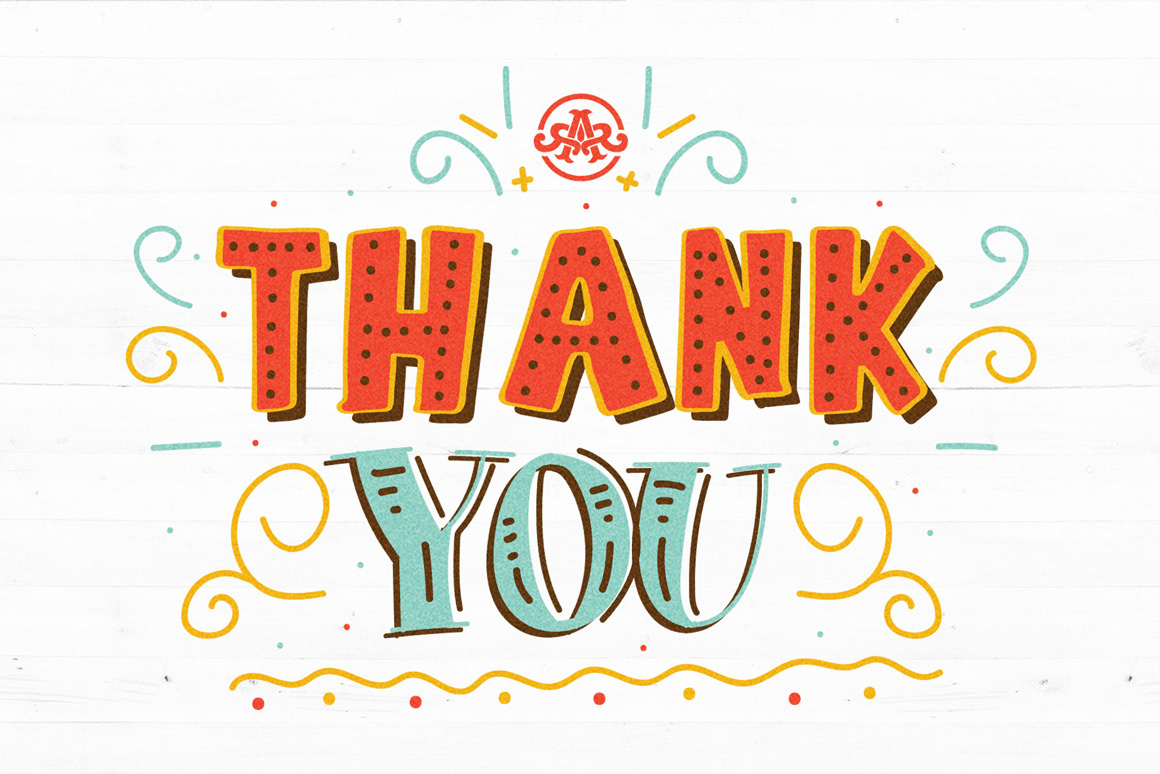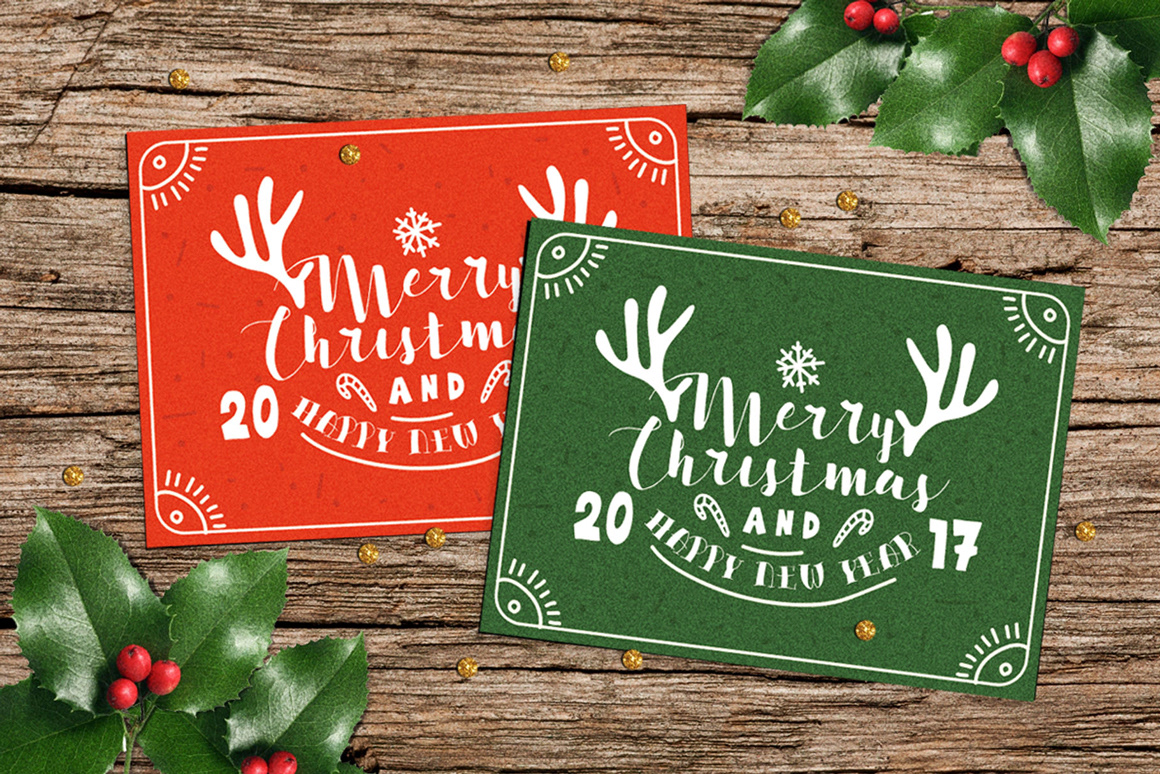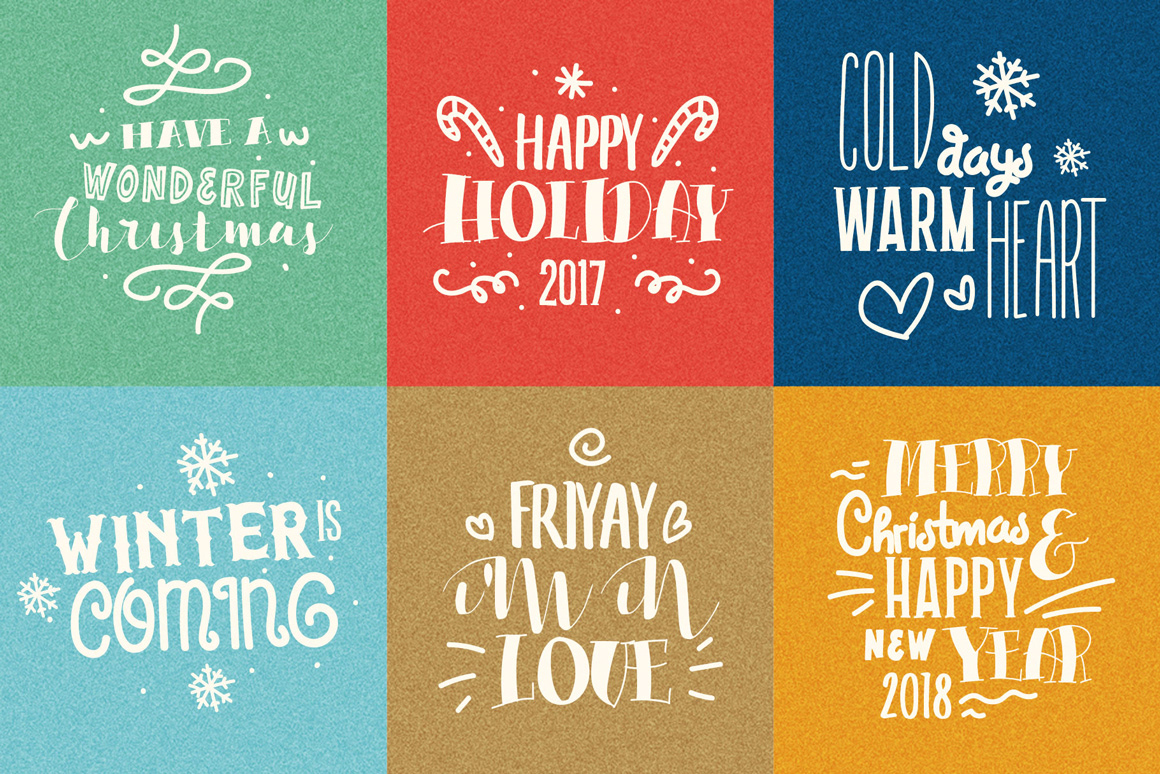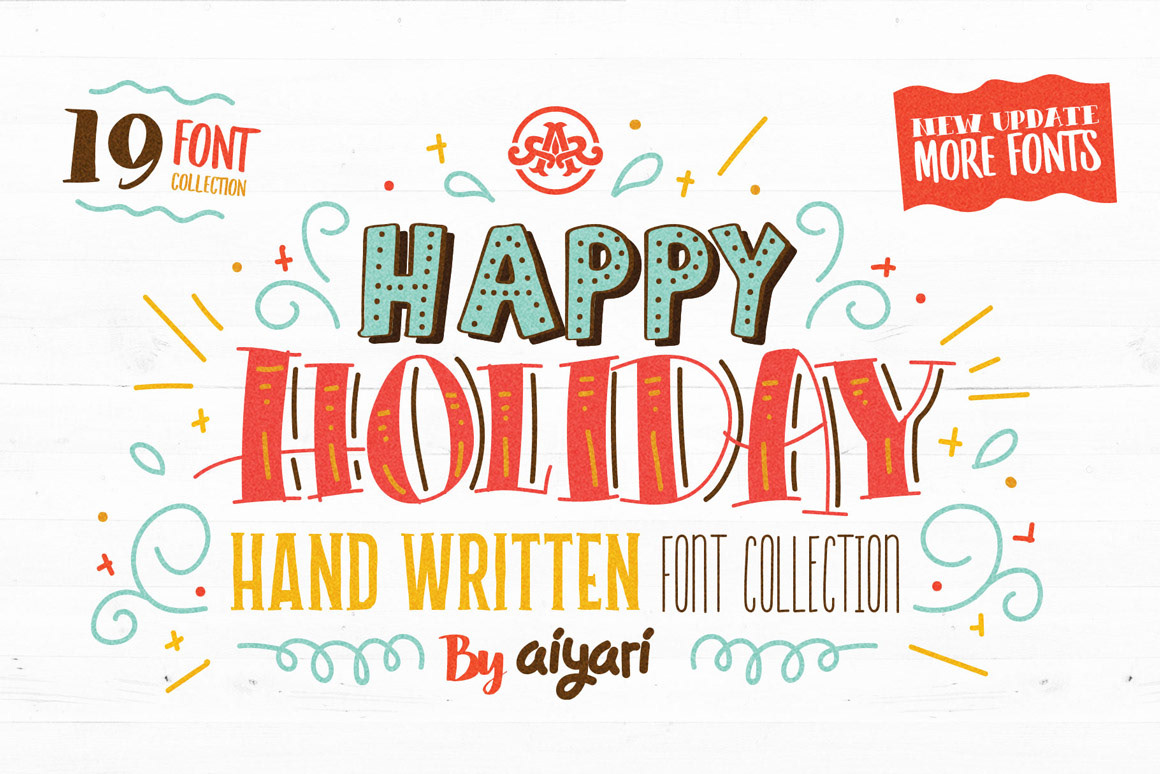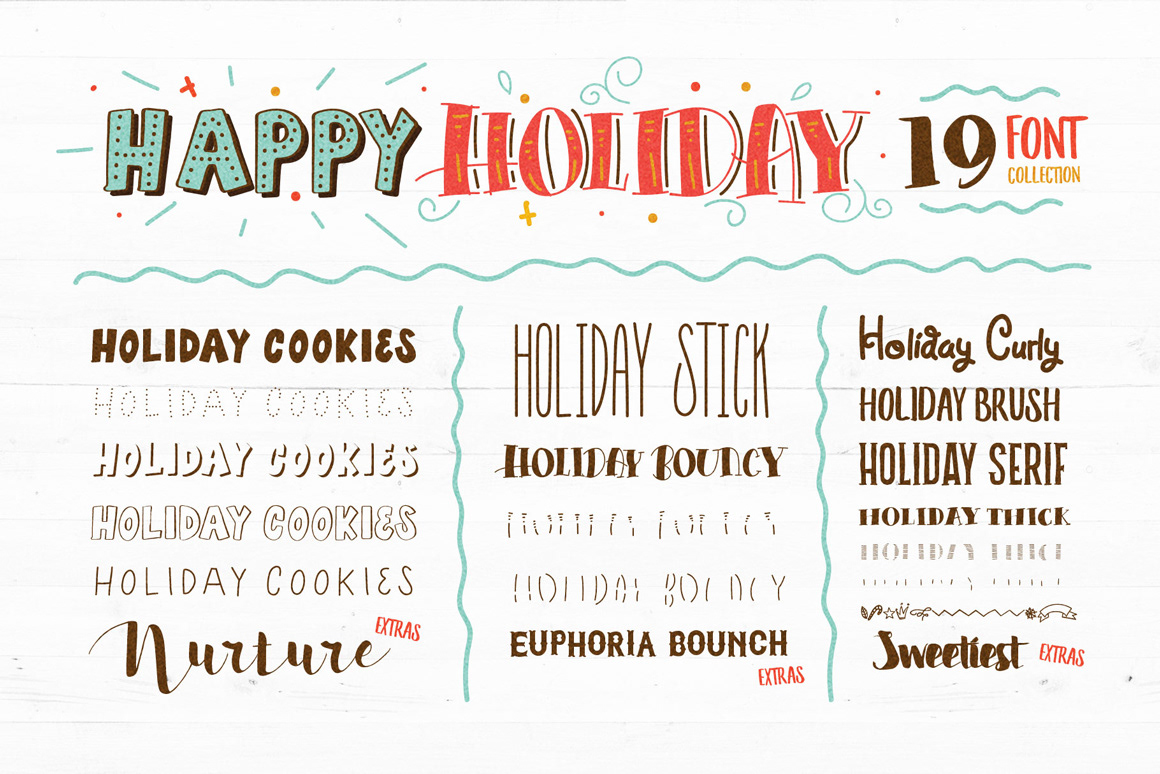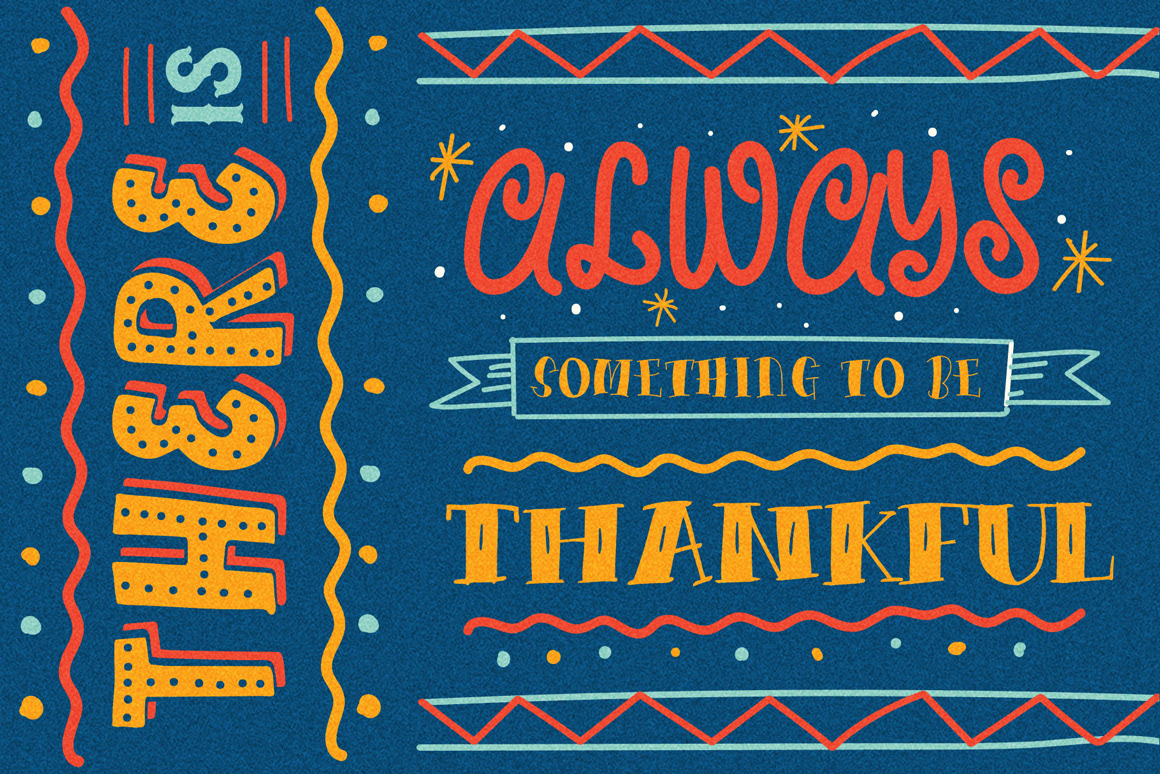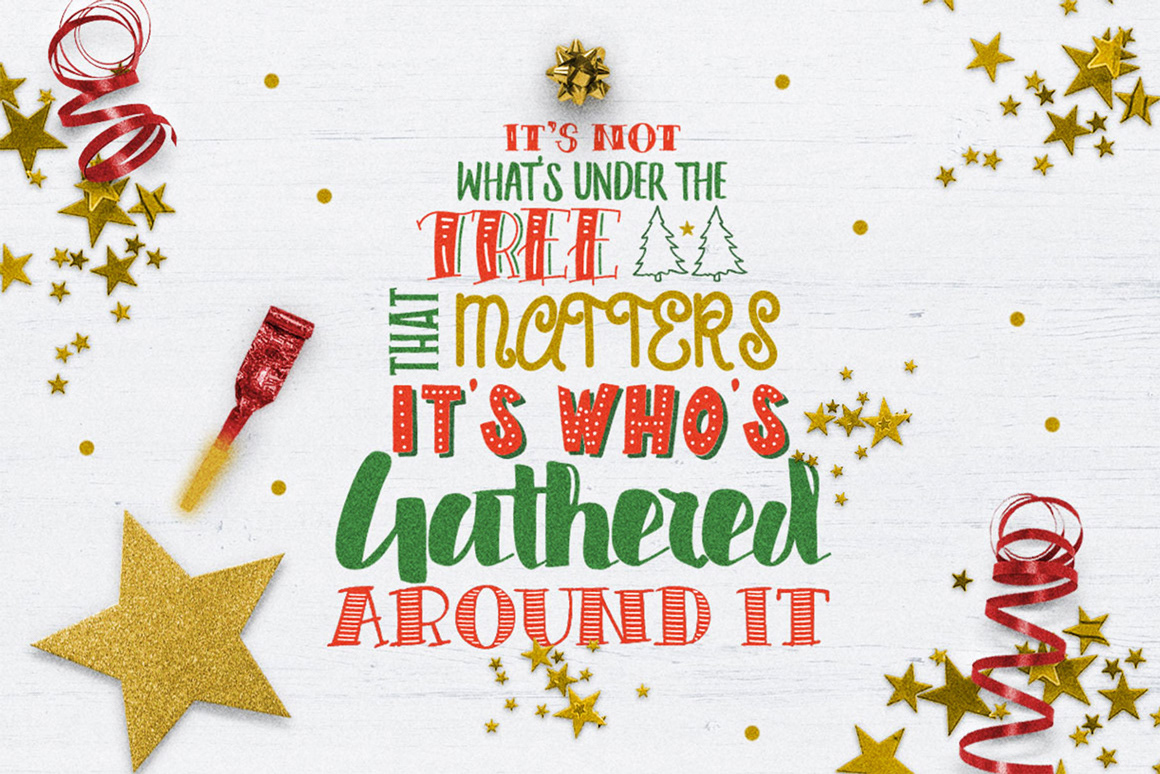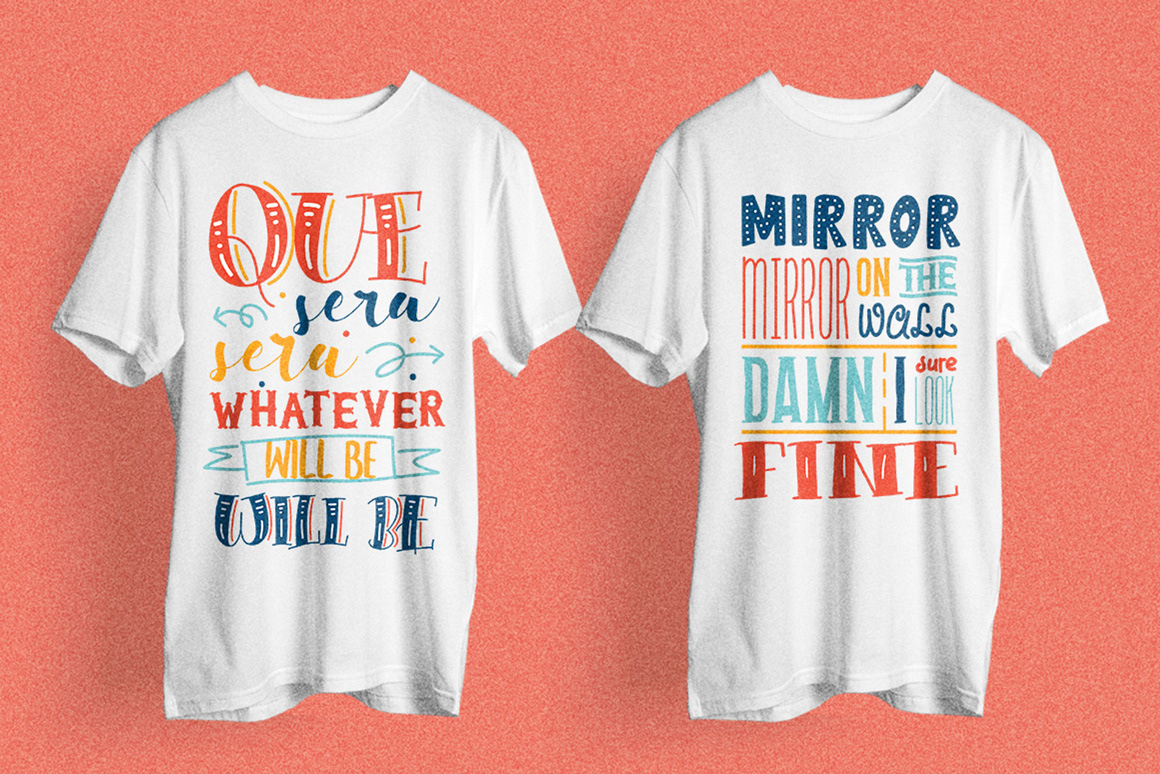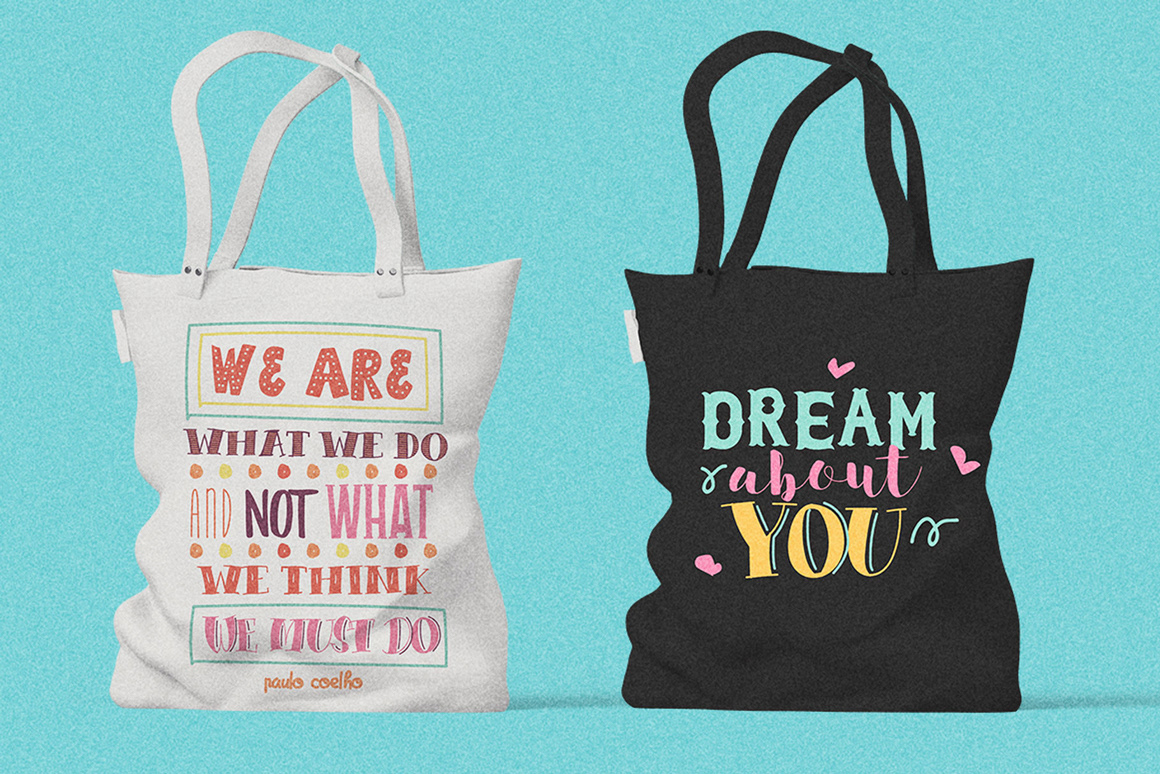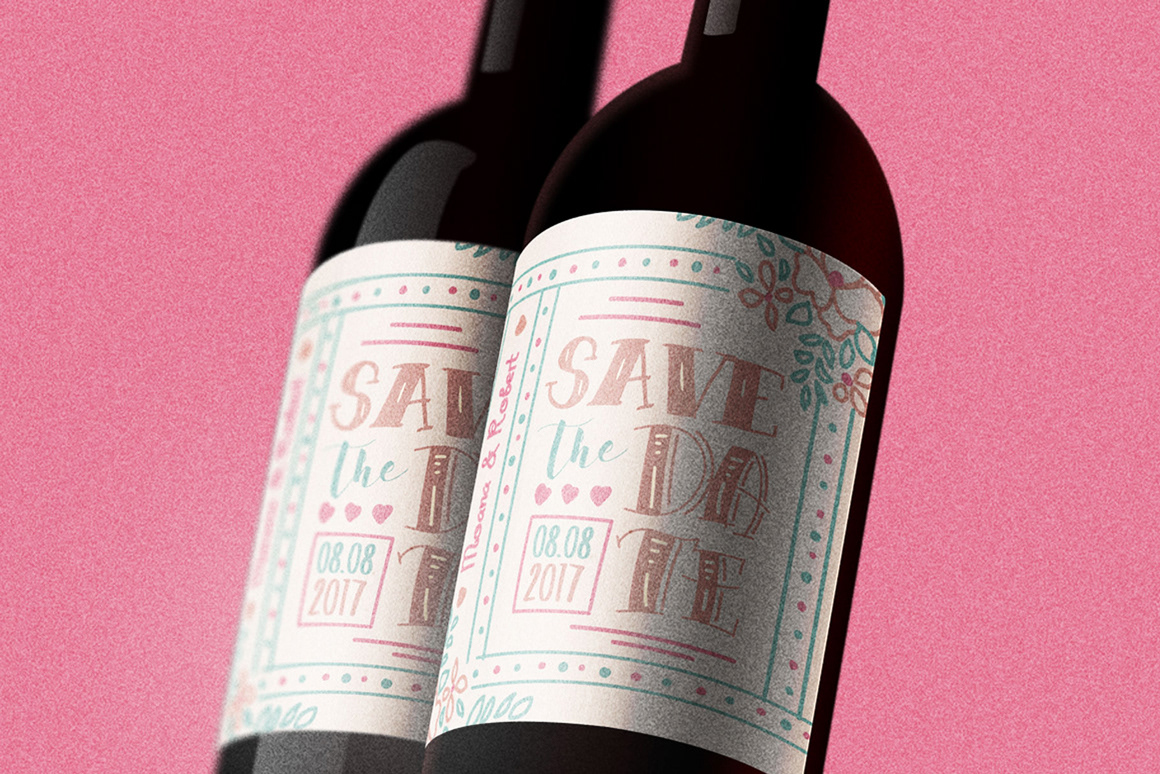
Happy Holiday Font Collection By: Aiyari
A fantastic 19 font collection, handwritten and handcrafted to create awesome handwritten typographic designs. Happy Holiday comes with 2 extras typefaces from my collection Nurture and Euphoria Bounch.